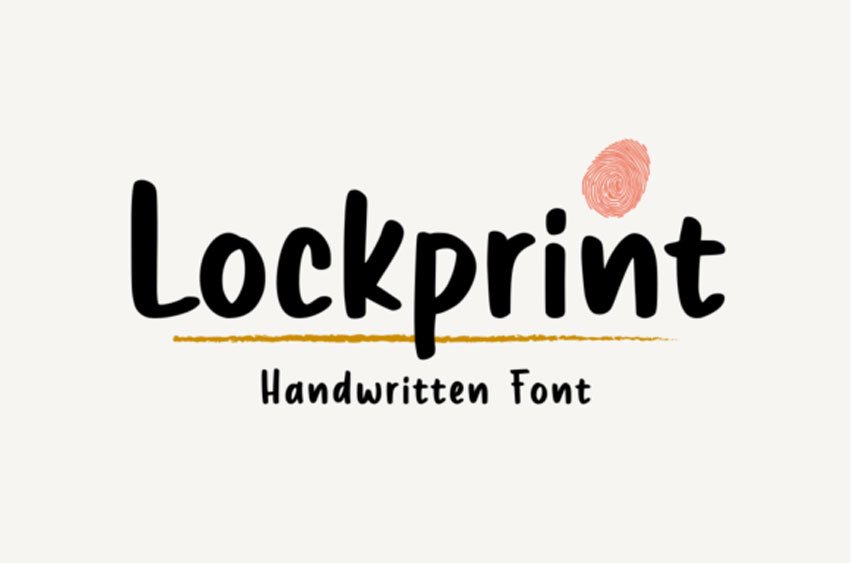
Lockprint Font is a bold handwritten font that makes a strong statement with its distinct character. With its bold strokes and handwritten charm, this font exudes confidence and personality.
Perfect for projects that require a bold and impactful presence, such as logos, posters, or branding materials. “Lockprint” adds a touch of boldness and authenticity to your designs, ensuring they stand out with a powerful handwritten aesthetic.